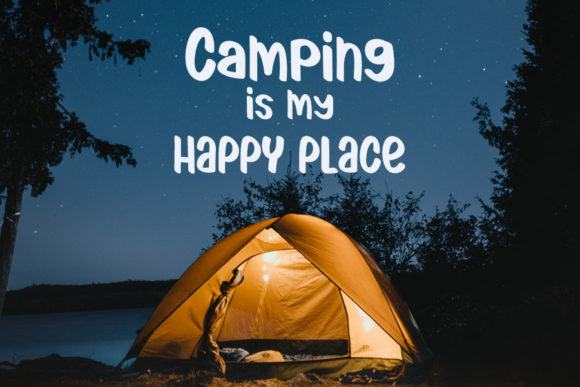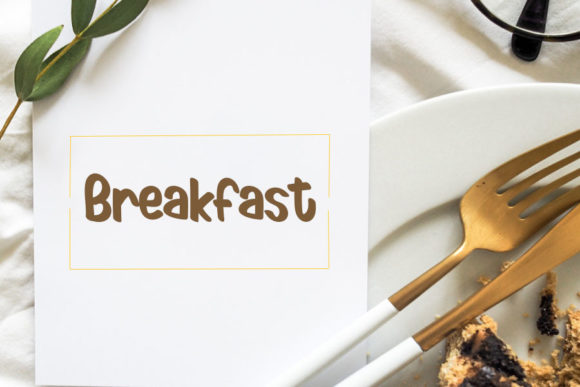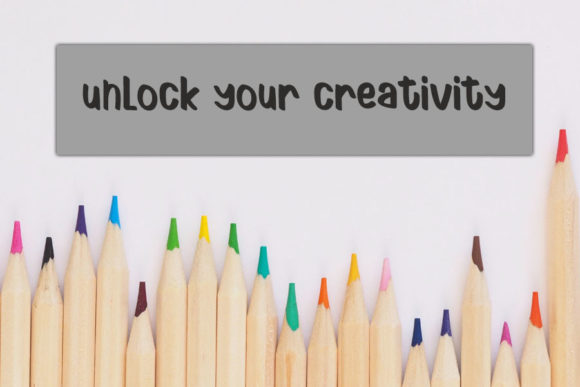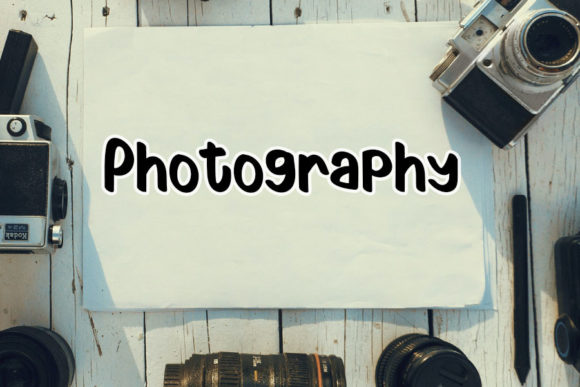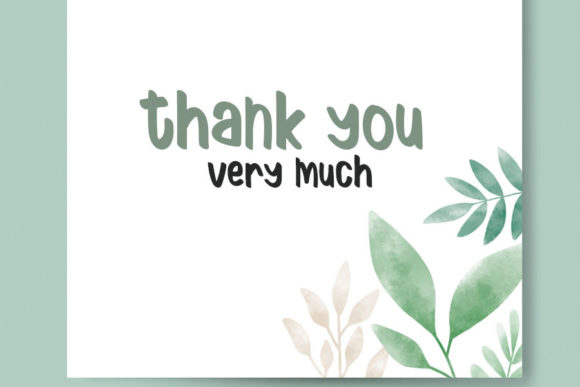
Camping Font: The Perfect Addition to Your Design Arsenal
Are you a designer or crafter looking for a font that can add a touch of whimsy and adventure to your projects? Look no further than Camping Font! This adorable handwritten font is perfect for anyone who wants to infuse their designs with a sense of natural charm and uniqueness. In this article, we’ll dive into the world of Camping Font and explore its features, benefits, and uses.
What is Camping Font?
Camping Font is a cute and trendy handwritten font that is designed to evoke the great outdoors. Its natural and unique style makes it incredibly fitting for a wide range of designs, from camping and adventure-themed projects to more creative and artistic endeavors. The font’s playful and carefree vibe is sure to capture the imagination of designers and crafters alike.
Key Features of Camping Font
- Handwritten style: Camping Font is a handwritten font that boasts a natural, effortless look.
- Unique and quirky: The font’s unique style makes it perfect for designers who want to add a touch of personality to their projects.
- Highly versatile: Camping Font can be used for a wide range of designs, from outdoor-themed projects to more creative and artistic endeavors.
- Easy to read: Despite its playful style, Camping Font is easy to read and understand, making it perfect for use in body text.
Benefits of Using Camping Font
So why should you choose Camping Font for your next project? Here are just a few benefits of using this amazing font:
- Adds a touch of whimsy: Camping Font is the perfect way to add a touch of whimsy and adventure to your designs.
- Stand out from the crowd: With its unique style, Camping Font is sure to help your designs stand out from the crowd.
- Perfect for outdoor-themed projects: Whether you’re designing a logo for a camping company or creating a brochure for a national park, Camping Font is the perfect choice.
Uses for Camping Font
Camping Font is incredibly versatile, and can be used for a wide range of designs, including:
- Outdoor-themed projects: Camping Font is perfect for designs that require a natural, outdoorsy feel, such as logos, brochures, and posters.
- Creative projects: The font’s playful style makes it perfect for more creative projects, such as art journals, scrapbooking, and mixed media.
- Branding and marketing materials: Camping Font can be used to create eye-catching branding and marketing materials, such as business cards, flyers, and social media graphics.
- Signs and displays: The font’s clear and easy-to-read style makes it perfect for use on signs and displays.
Tips for Using Camping Font
Here are a few tips for getting the most out of Camping Font:
- Use it sparingly: While Camping Font is incredibly versatile, it’s best to use it sparingly to avoid overwhelming your design.
- Pair it with other fonts: Camping Font pairs well with other fonts, such as sans-serif fonts and script fonts.
- Experiment with colors: The font’s natural style makes it perfect for use with earthy colors, such as greens, blues, and browns.
In conclusion, Camping Font is a unique and versatile font that is perfect for designers and crafters who want to add a touch of whimsy and adventure to their projects. With its natural and playful style, Camping Font is sure to capture the imagination of anyone who sees it. So why not give it a try and see what amazing designs you can create?